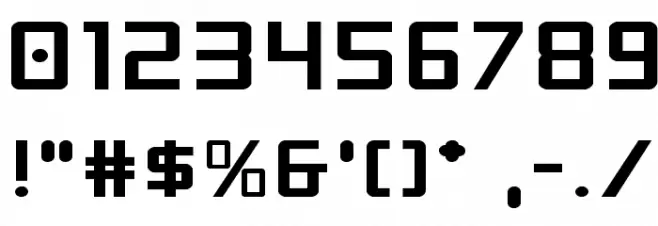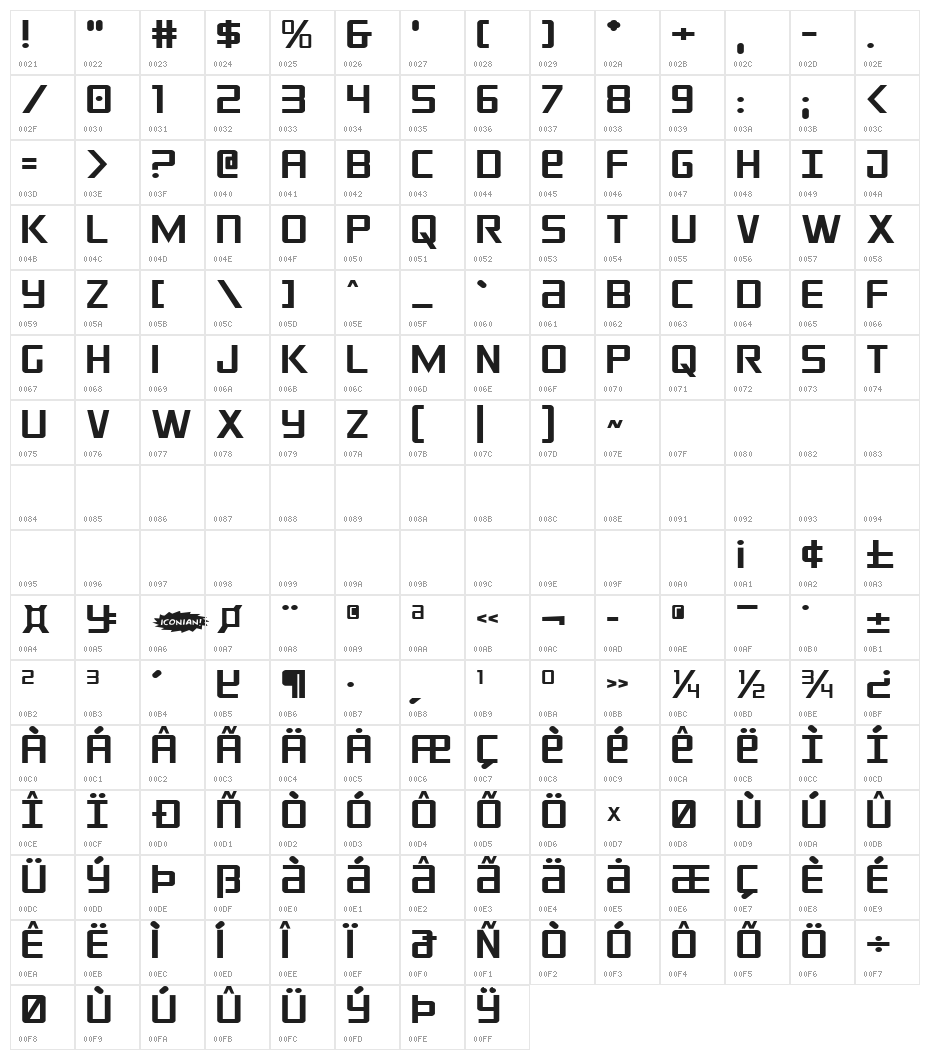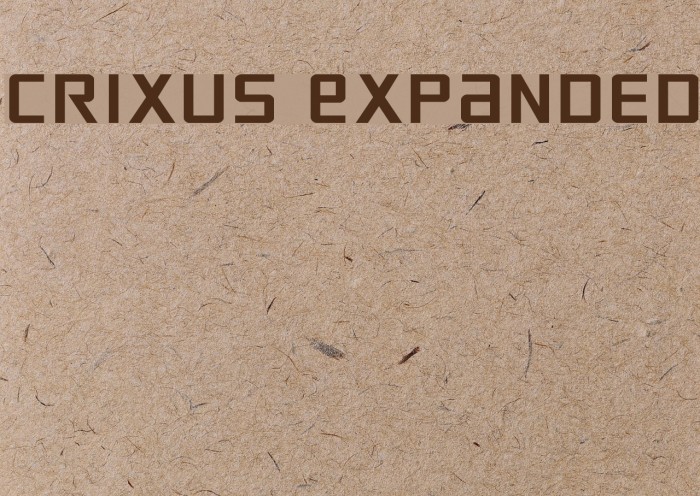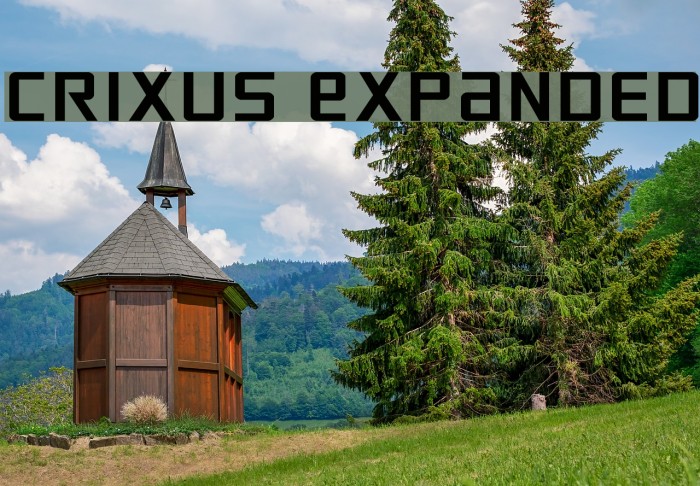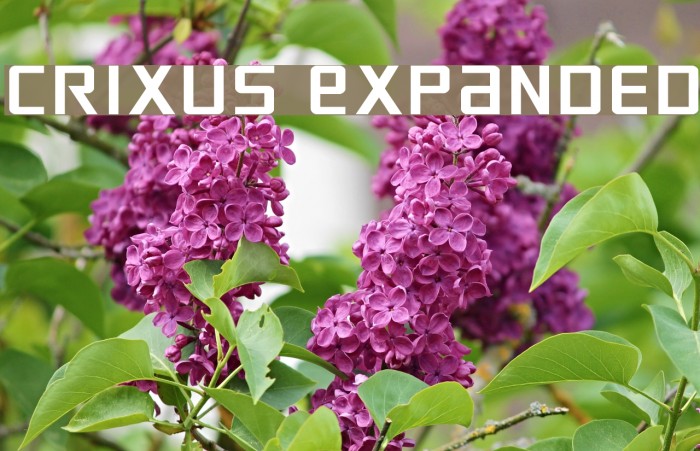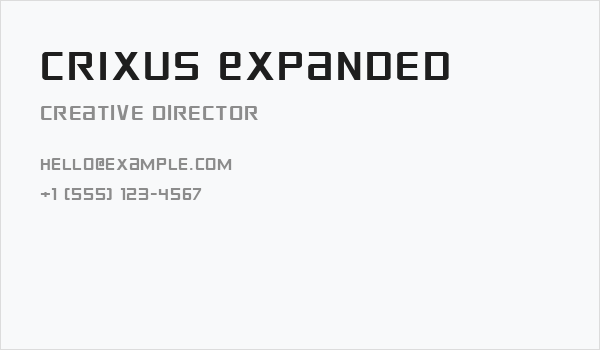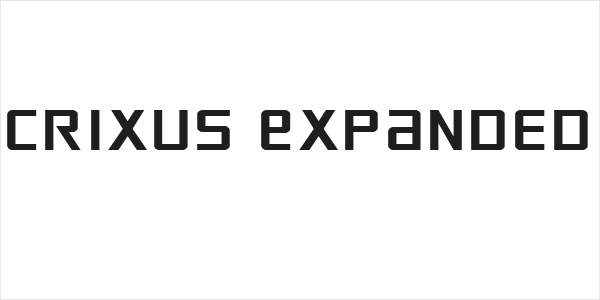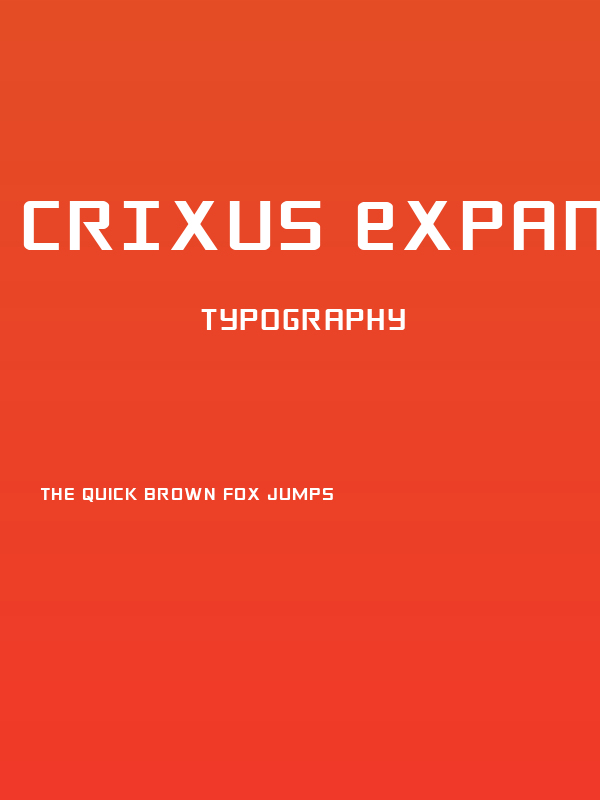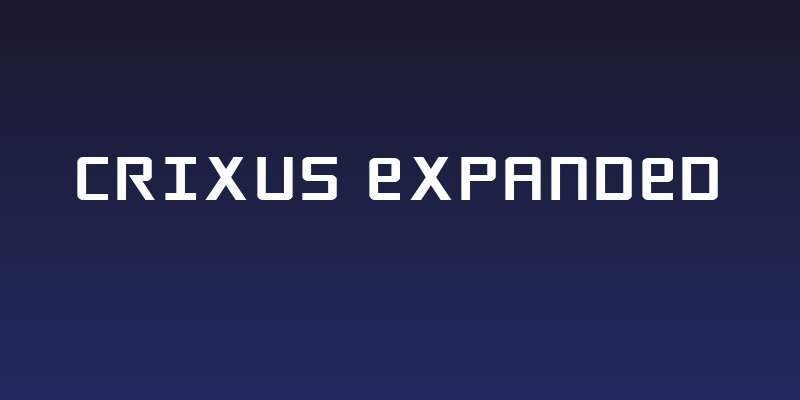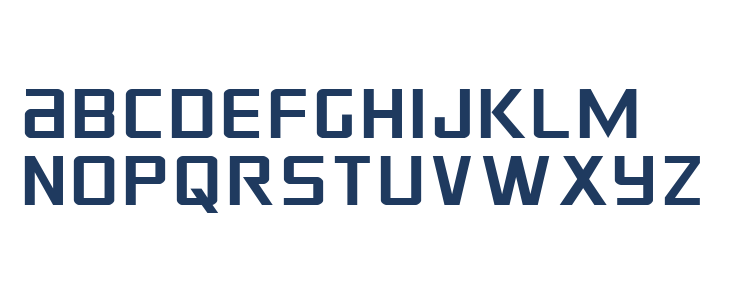
Crixus Expanded Font
Crixus Expanded Description
This font features a bold, geometric design with a modern and futuristic appeal. The characters are constructed with straight lines and sharp angles, giving it a strong and assertive presence. The uppercase and lowercase letters maintain a consistent height, contributing to a uniform appearance. The numbers and special characters follow the same design principles, ensuring a cohesive look across all elements. The font's expanded width enhances readability and makes it suitable for attention-grabbing headlines or titles.
| Proposed Projects | Ideal for technology branding, futuristic posters, video game titles, and modern web design. |